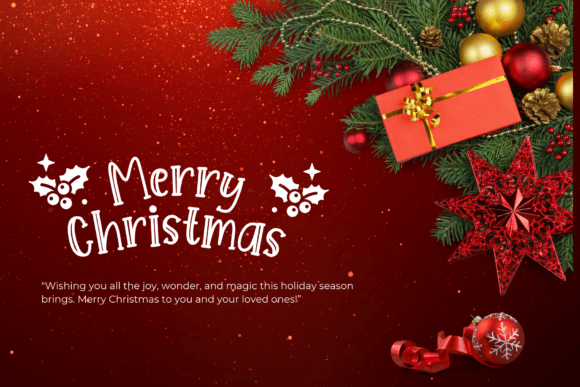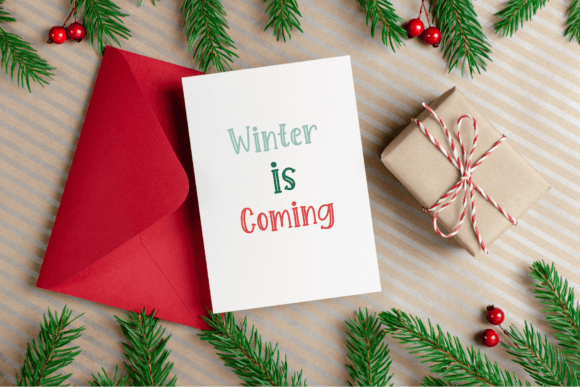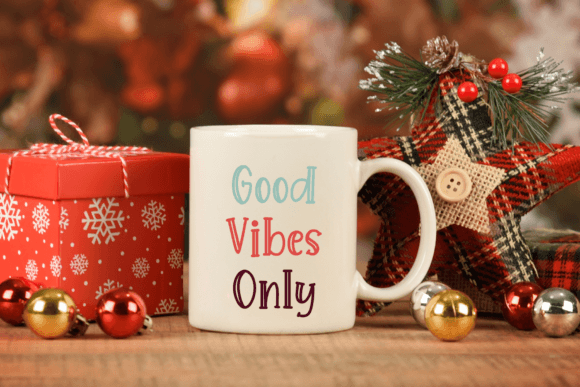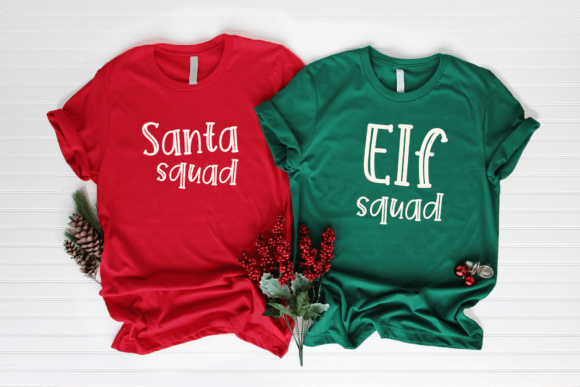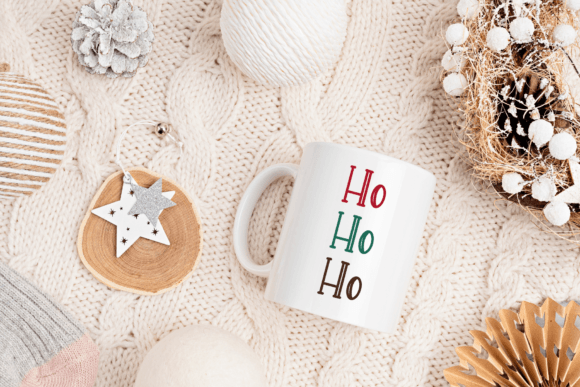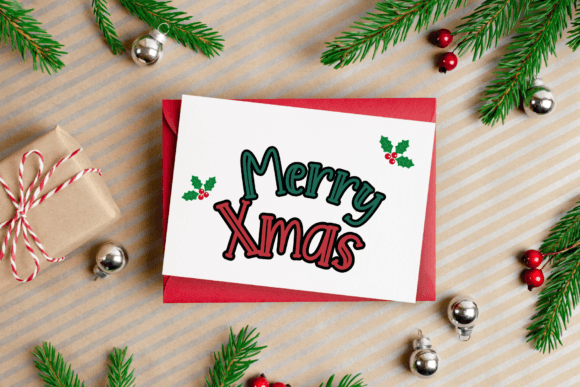
Introducing Creche Font: The Ultimate Choice for Playful and Authentic Designs
Are you tired of using the same old fonts for your designs? Look no further! Creche Font is here to revolutionize your creative projects with its playful and authentic vibe. This fun handwritten font is perfect for designers, crafters, and anyone looking to add a personal touch to their work. In this article, we’ll dive into the world of Creche Font and explore its endless possibilities.
What is Creche Font?
Creche Font is a beautiful, handwritten font that exudes playfulness and authenticity. Its unique and charming design makes it an ideal choice for a wide range of projects, from blog posts and logos to branding, ads, invitations, greeting cards, planners, photo albums, decorations, and more. With Creche Font, you can add a touch of personality to your designs and make them stand out from the crowd.
Key Features of Creche Font
- Playful and Authentic: Creche Font embodies a sense of playfulness and authenticity, making it perfect for designs that require a personal touch.
- Handwritten Design: The font’s handwritten design gives it a unique and charming feel that’s sure to capture the attention of your audience.
- Versatile: Creche Font is suitable for a wide range of projects, from digital designs to print materials.
Uses of Creche Font
Creche Font is an incredibly versatile font that can be used in various design projects. Here are some ideas to get you started:
- Blog Posts: Add a personal touch to your blog posts with Creche Font. It’s perfect for headings, subheadings, and even body text.
- Logos and Branding: Create a unique and memorable logo for your brand with Creche Font. Its playful design makes it perfect for businesses that want to stand out.
- Ads and Marketing Materials: Use Creche Font to create eye-catching ads, flyers, and brochures that grab attention.
- Invitations and Greeting Cards: Add a personal touch to your invitations and greeting cards with Creche Font. It’s perfect for special occasions like birthdays, weddings, and holidays.
- Planners and Photo Albums: Create beautiful planners and photo albums with Creche Font. Its playful design makes it perfect for scrapbooking and other craft projects.
- Decorations: Use Creche Font to create beautiful decorations for your home or office. It’s perfect for signs, banners, and other display materials.
Tips for Using Creche Font
Here are some tips to help you get the most out of Creche Font:
- Experiment with Different Sizes: Creche Font looks great in various sizes. Experiment with different sizes to find the one that works best for your project.
- Pair it with Other Fonts: Creche Font pairs well with other fonts. Try pairing it with a sans-serif font for a modern look or a serif font for a more traditional look.
- Use it for Headings and Subheadings: Creche Font is perfect for headings and subheadings. Use it to add a personal touch to your designs.
- Don’t Overuse it: While Creche Font is a beautiful font, it’s best to use it sparingly. Overusing it can make your designs look cluttered and messy.
Creche Font is a beautiful and versatile font that’s perfect for designers, crafters, and anyone looking to add a personal touch to their work. Its playful and authentic design makes it an ideal choice for a wide range of projects, from blog posts and logos to branding, ads, invitations, greeting cards, planners, photo albums, decorations, and more. With Creche Font, you can create unique and memorable designs that stand out from the crowd. So why wait? Add Creche Font to your design arsenal today and enjoy the results!